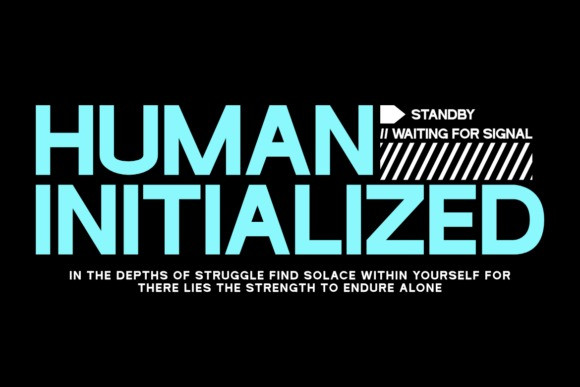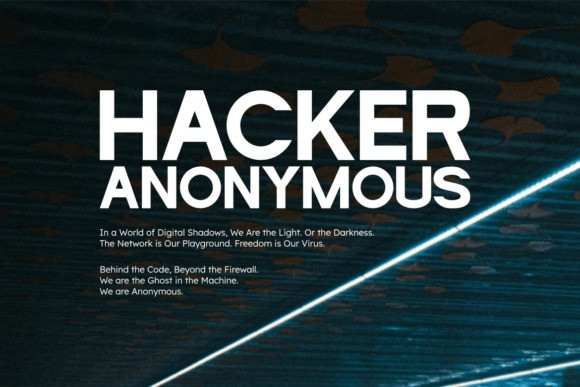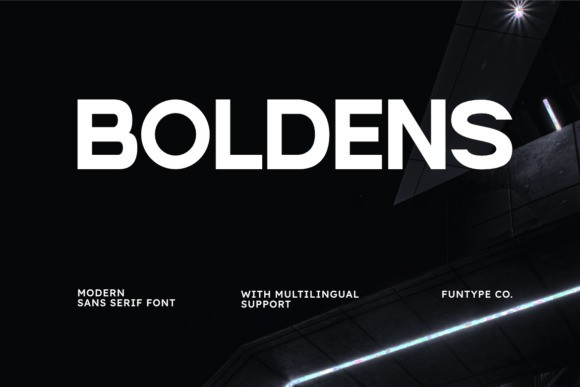
Boldens Font
Boldens Font is a modern sans-serif font designed with bold weight and a clean, geometric style. Perfect for creating impactful titles, strong branding, and eye-catching posters, this typeface brings a professional and contemporary look to any project.
With multilingual support and versatile usability, Boldens is great for editorial layouts, social media graphics, logo design, advertising, packaging, and more. Whether you’re working on digital content or print projects, Boldens ensures your designs stand out with clarity and confidence.